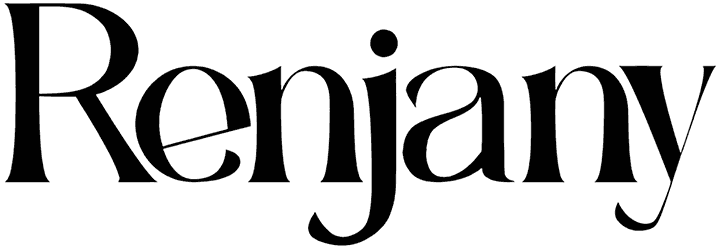
Renjany Font
Let us introduce Renjany, a bold serif font that provides an assertive, contemporary atmosphere. It spreads elegance and professionalism through your upcoming design and enhances its quality. This font can harmonize with any project that requires an attractive look, such as book covers, party invitations, fashion branding, announcements, and movie posters.